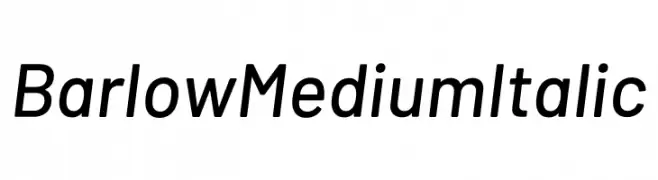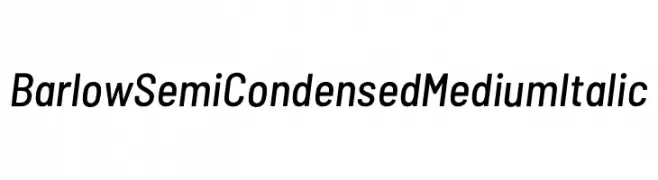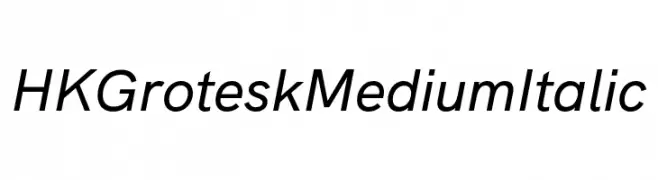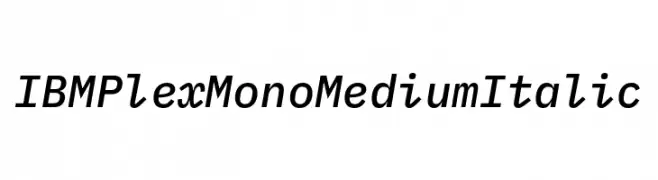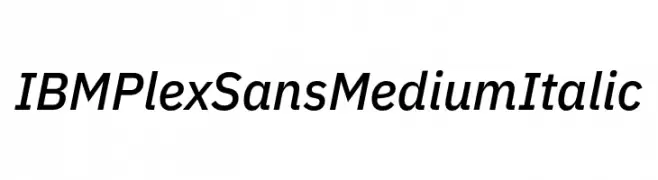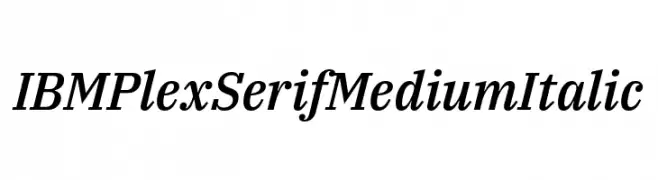
A modern, condensed italic font with medium weight and consistent stroke width.
A modern, italic sans-serif font with clean lines and balanced proportions.
A modern, semi-condensed italic typeface with medium weight and clean lines.
A modern, medium-weight italic sans-serif font with a sleek and dynamic style.
A modern, italic sans-serif typeface with clean lines and balanced proportions.
A modern, monospaced italic font with medium weight and clean lines.
A modern serif font with medium weight and italic style, offering elegance and readability.
A modern, italic sans-serif font with medium weight and excellent readability.
A modern, condensed sans-serif font with a medium weight and italic style.